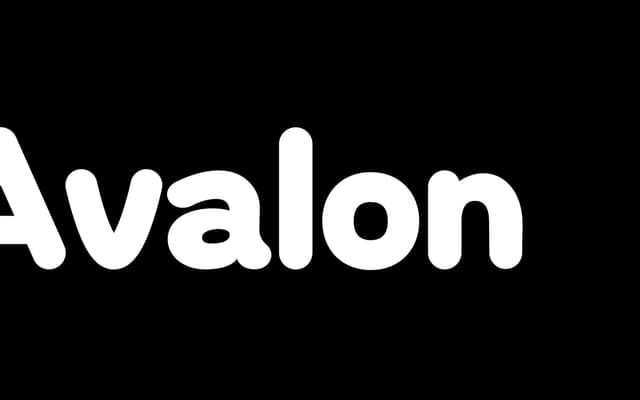
A chunky rounded display face suited to headlines and short bursts of text rather than sustained reading.
Heavy proportions and rounded terminals give Avalon a blunt, friendly character that works in poster headlines and subheadings. The foundry advises against body copy use, positioning it as a personality piece for short-form layout work. A single weight is offered with a complete glyph set.
A chunky, bold, rounded typeface intended for display and headline use; the rounded terminals and heavy weight place it firmly in the rounded display category.